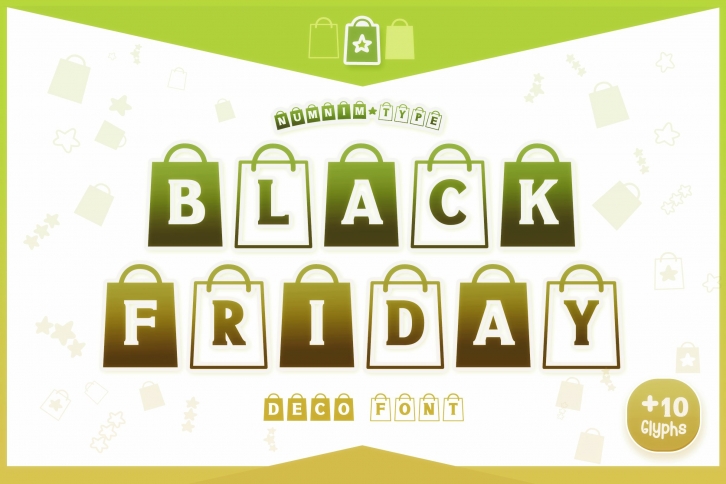
Black Friday Cute Shopping Bag OTF TTF Procreate is a great font that was designed by numnimtype. Imagine the amount of combinations you can create using this font! The archive is 2.11 MB and it was released on November 20, 2021. Black Friday Cute Shopping Bag OTF TTF Procreate looks beautiful on wedding invitations, greeting cards, logos, posters, labels, t-shirt designs, logos, business cards and is perfect for use in ink or watercolor works, fashion, magazines, packaging and food menus, children's books and more!